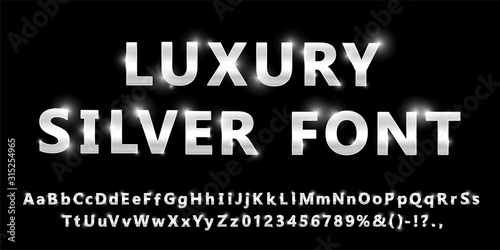
Shiny modern silver font isolated on black background. Vintage platinum numbers and letters with shadows. Detailed 3d alphabet. Typography metal steel bold mockup. Anniversary letters. Vector